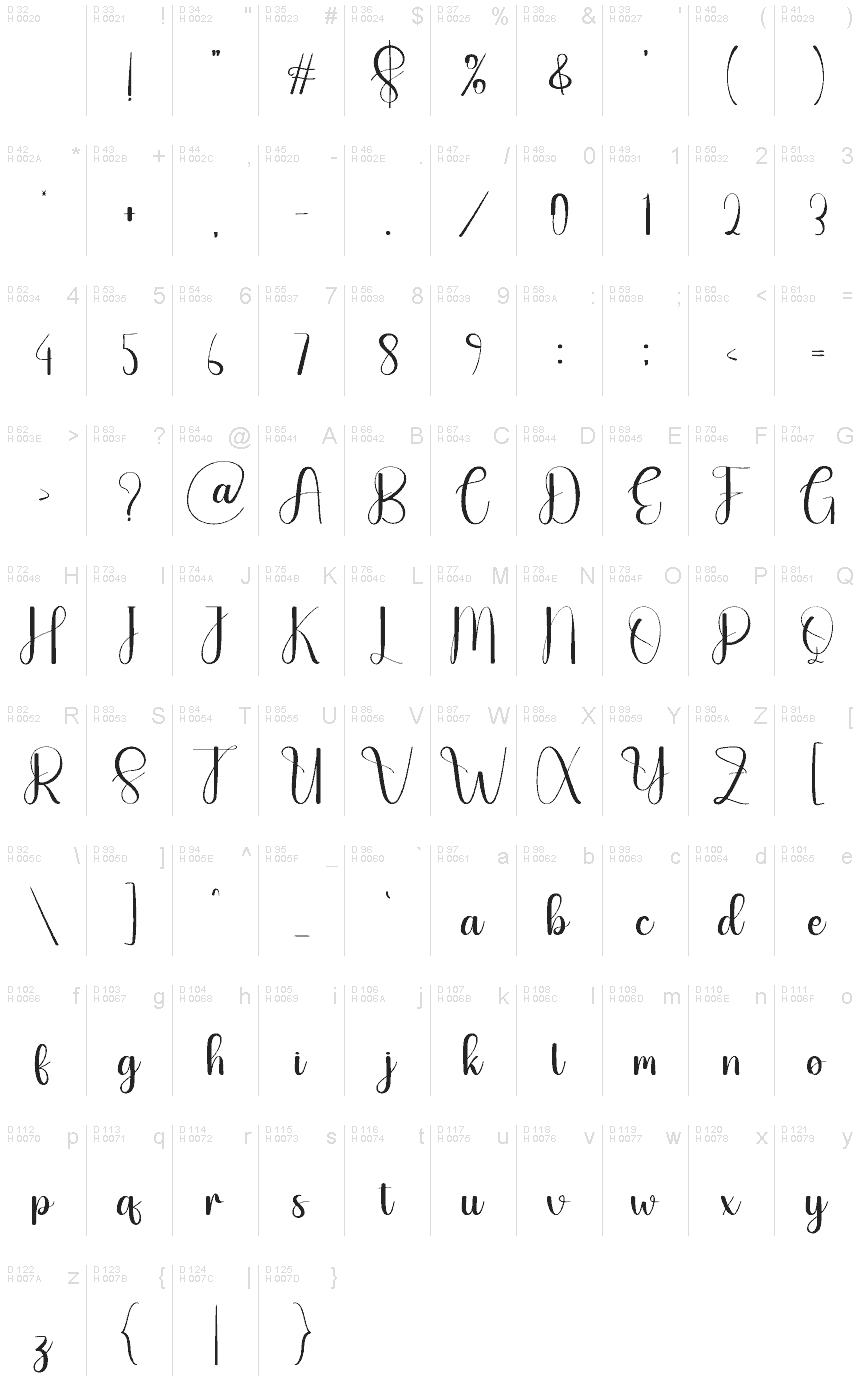
Reveille
Reveille font by Andi Moz is a free calligraphy font that effortlessly blends elegance with modern appeal. Fashionable and flowing, this script font is destined to please any viewer while leaving its mark of refinement and stylishness.
Use it for invitations, wedding cards, logos, branding designs, business cards, packaging and label designs. Enjoy using this lovely typeface in digital format on websites or particular mobile apps!